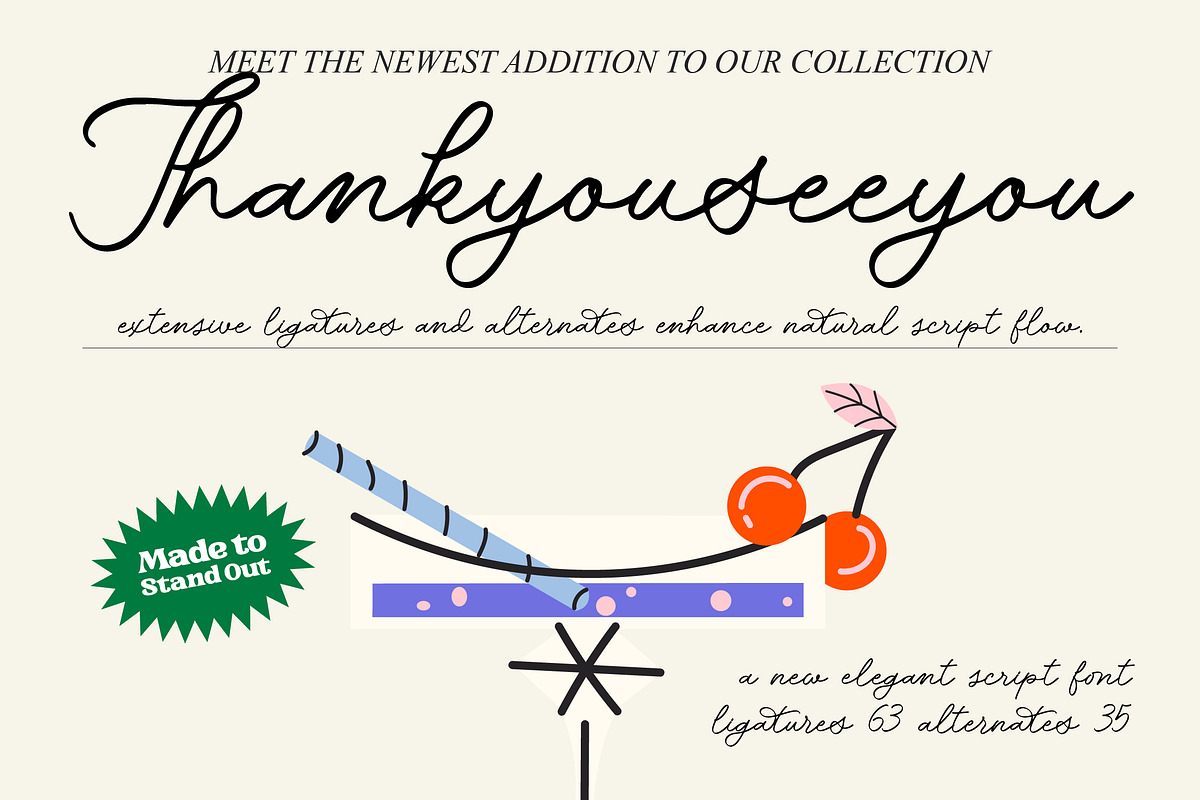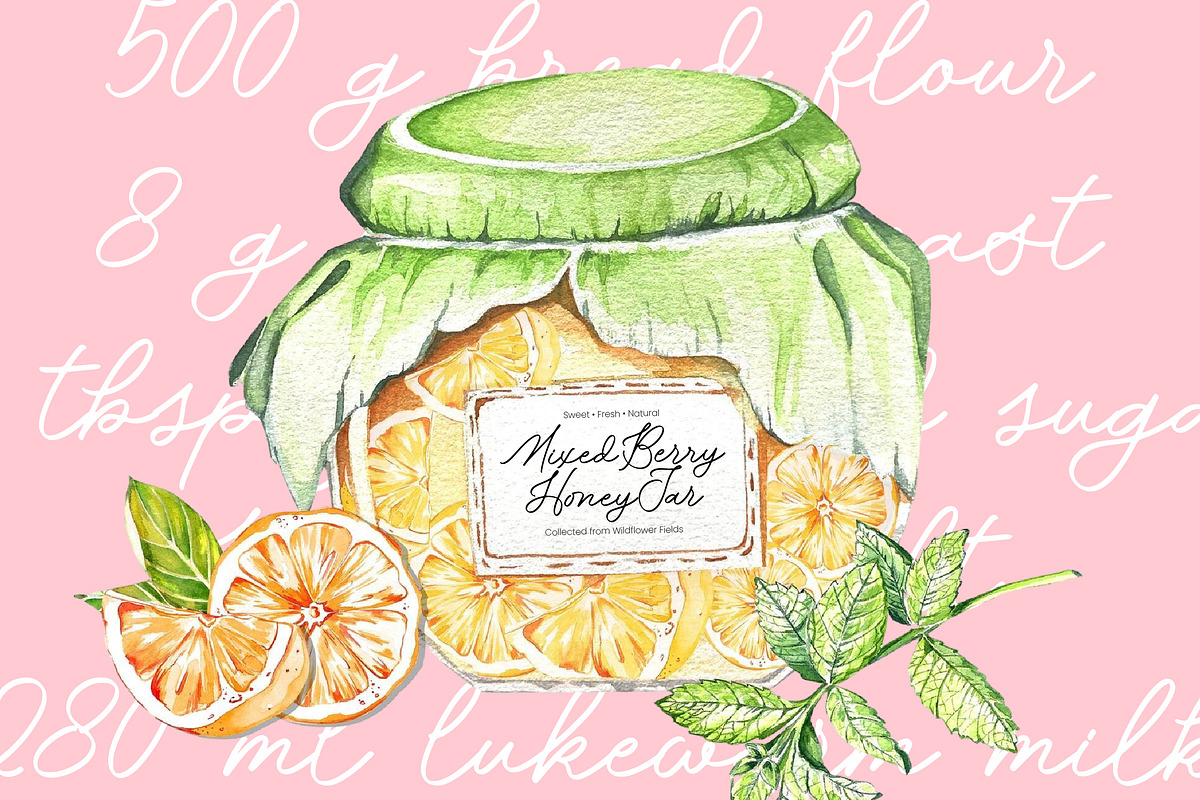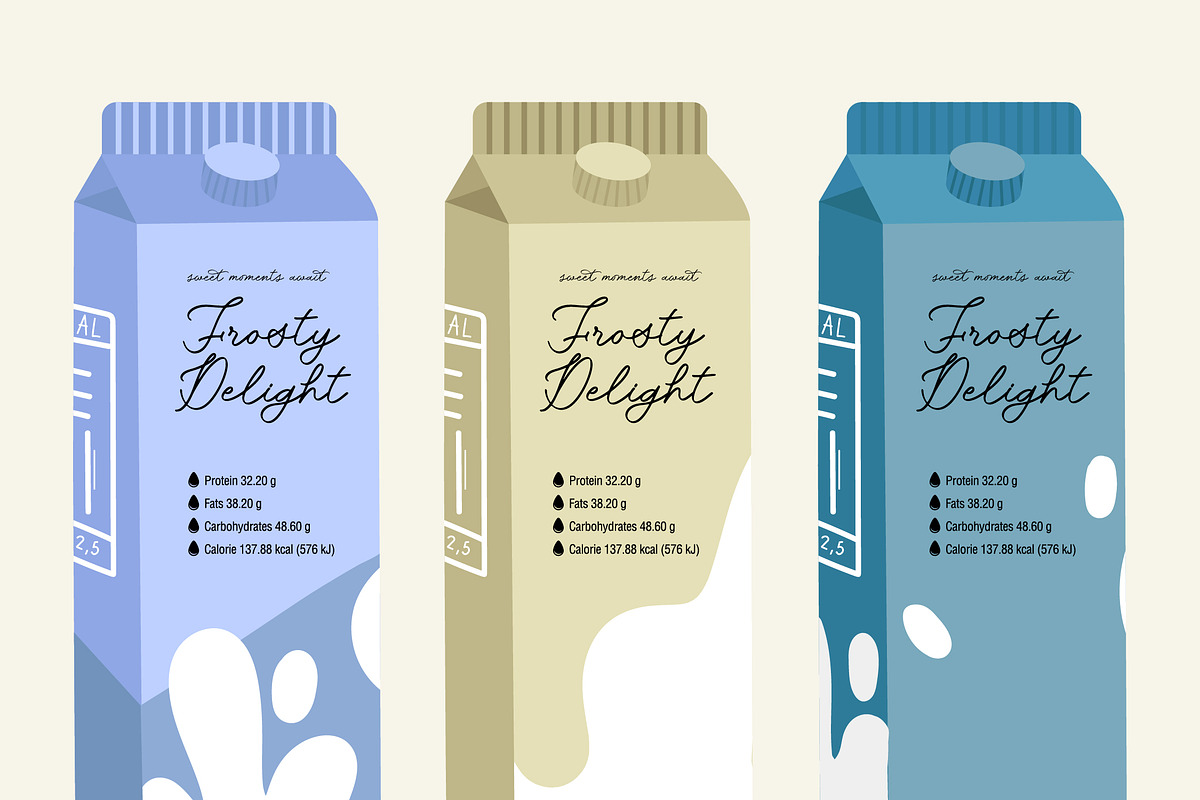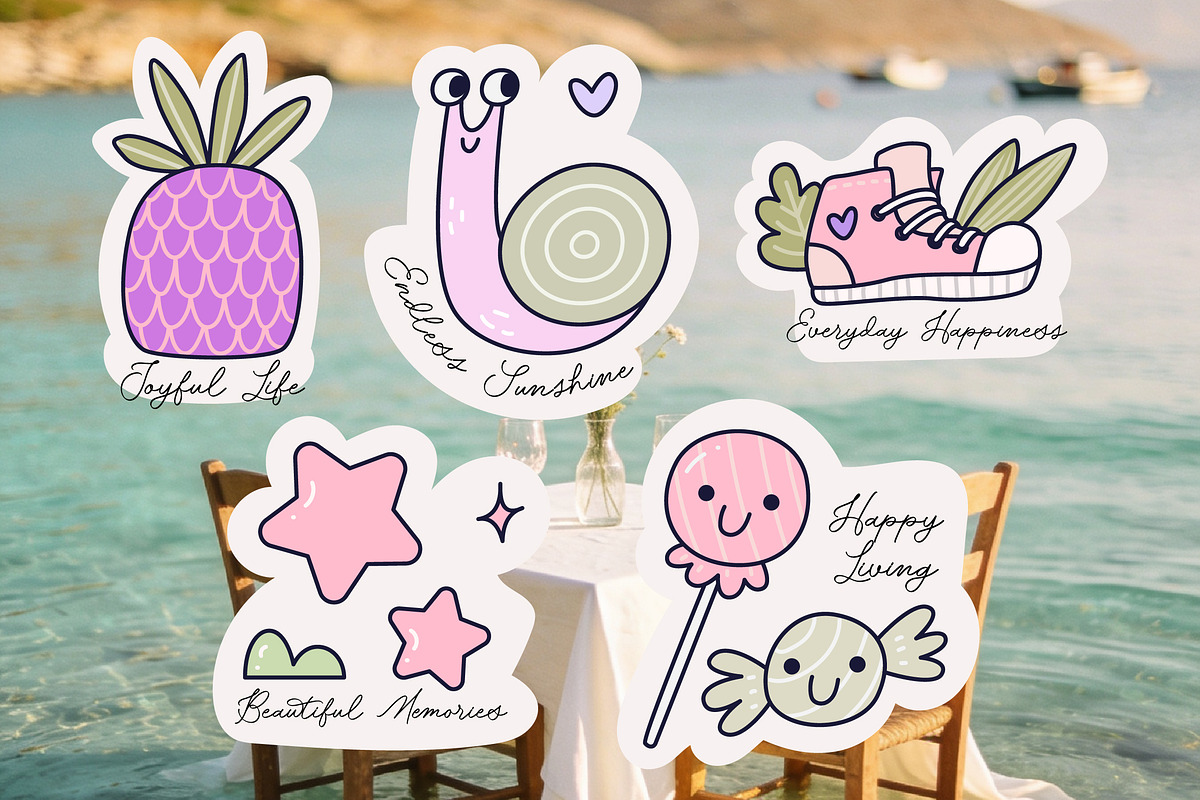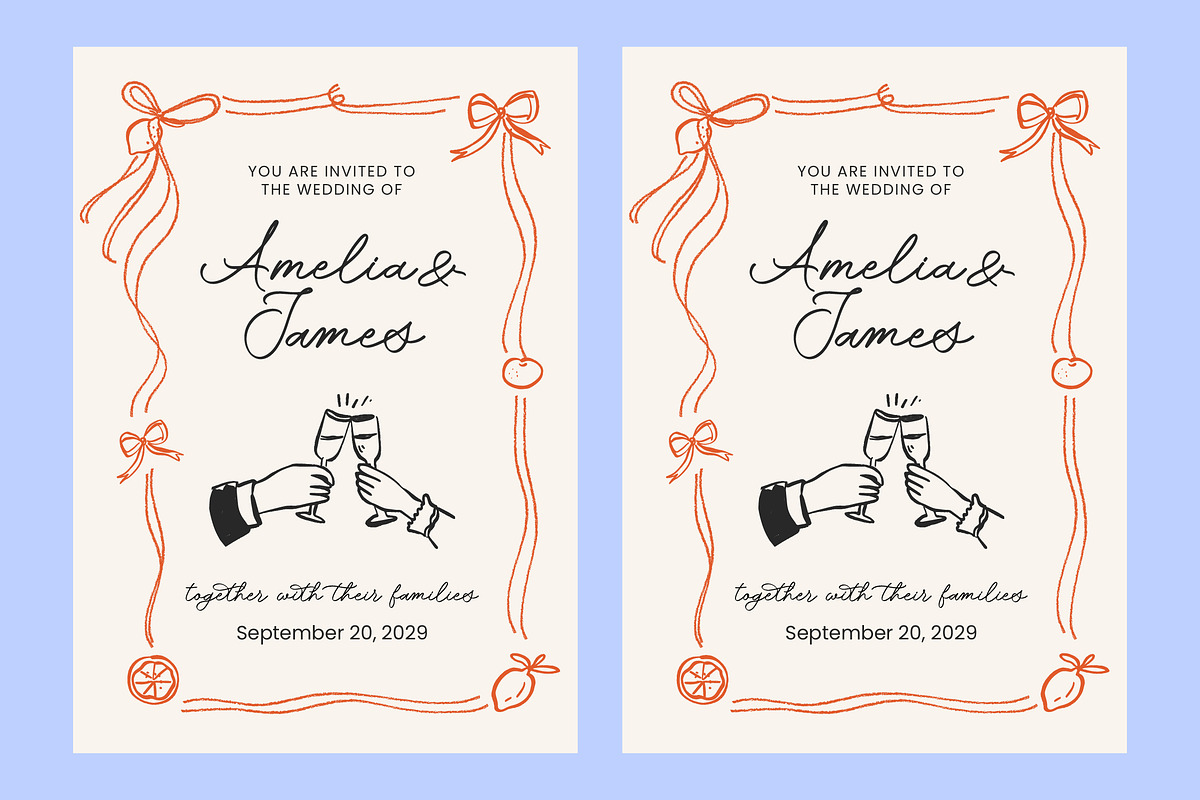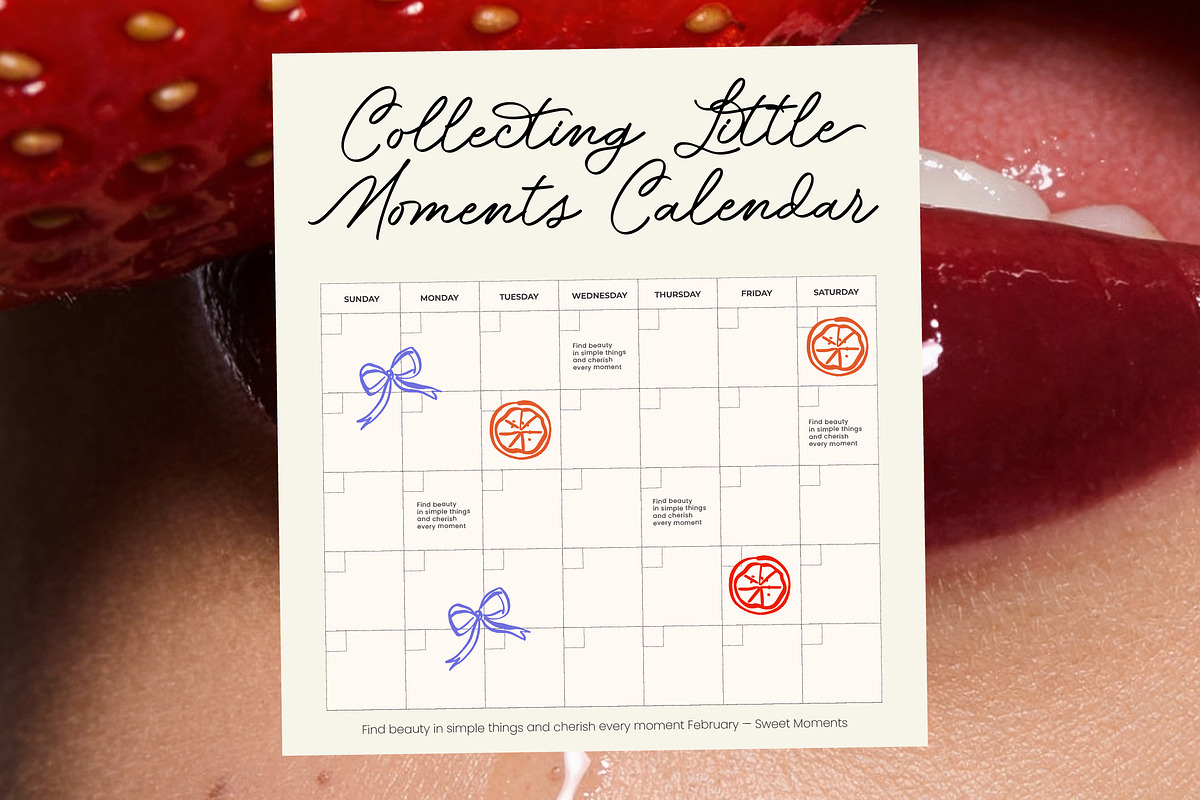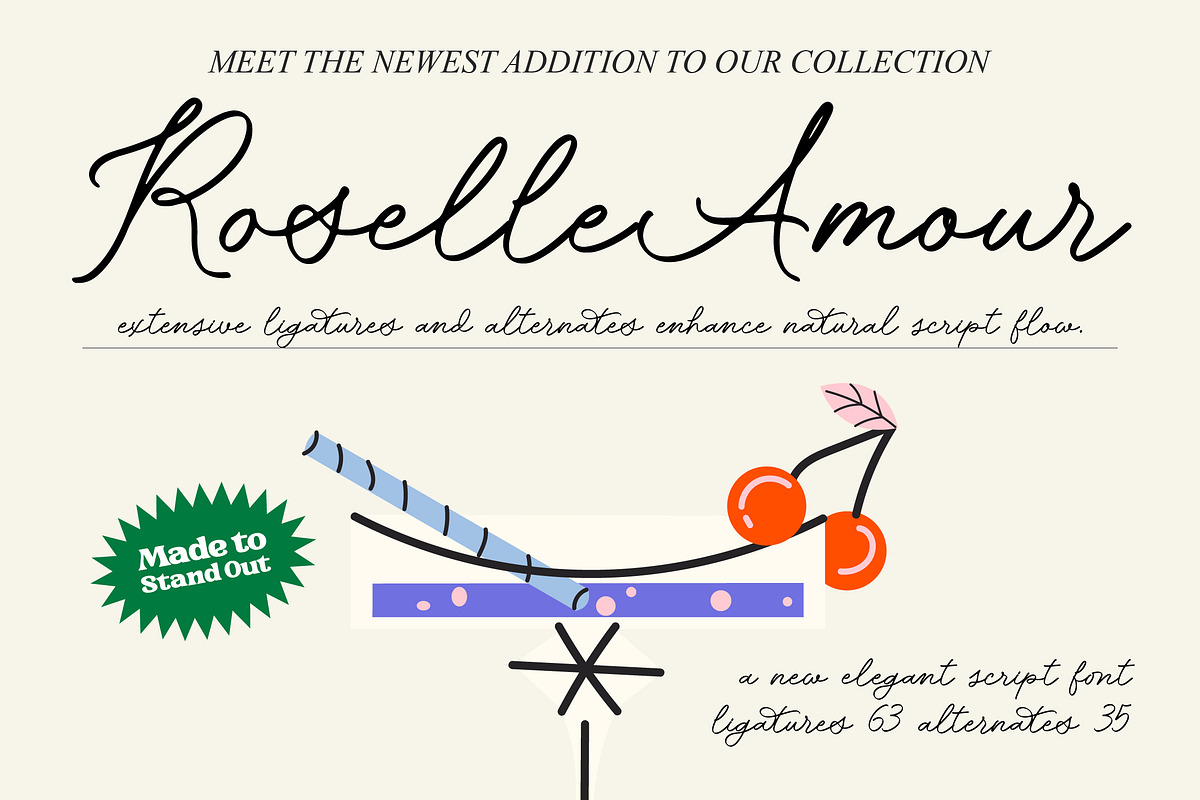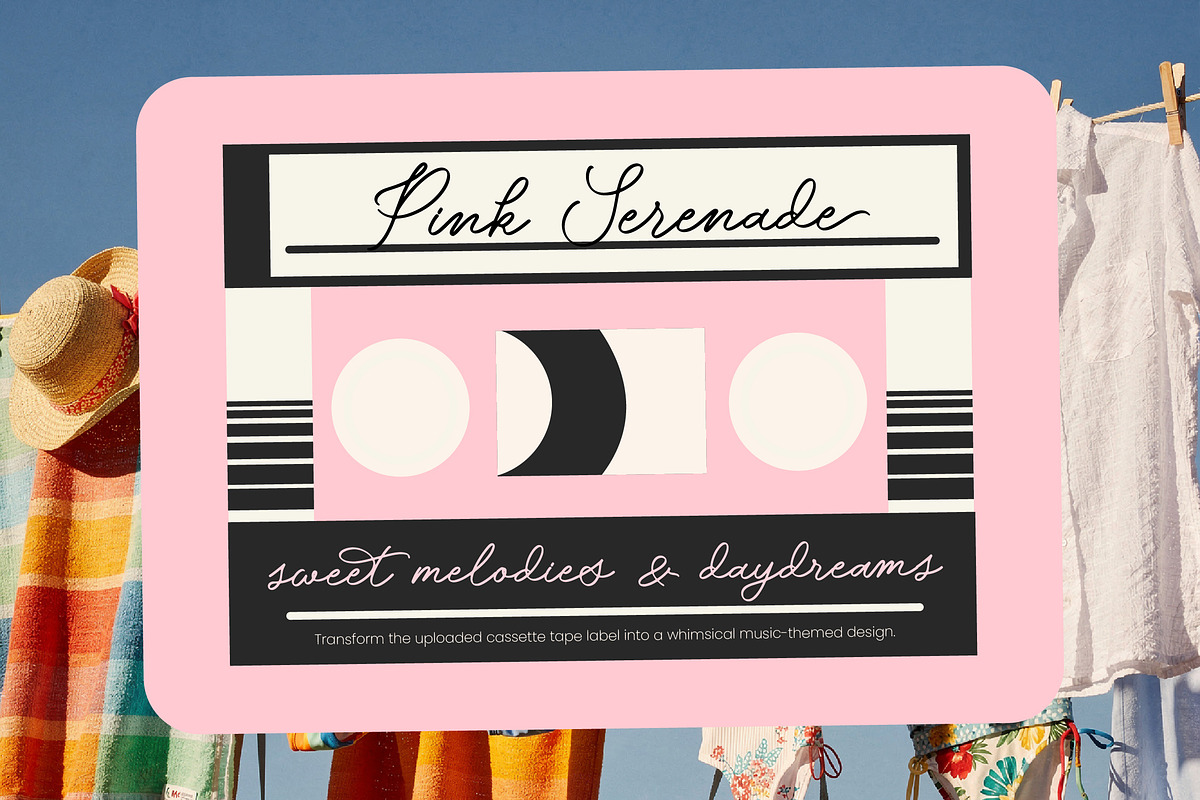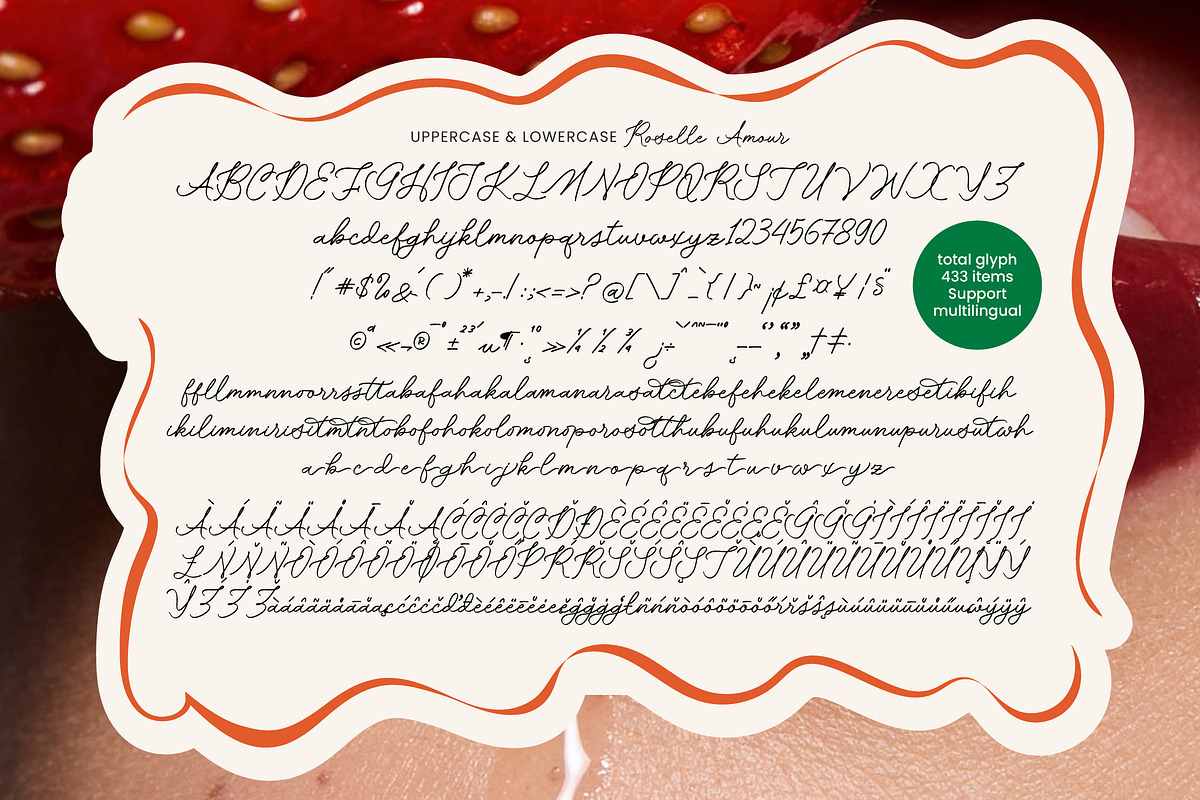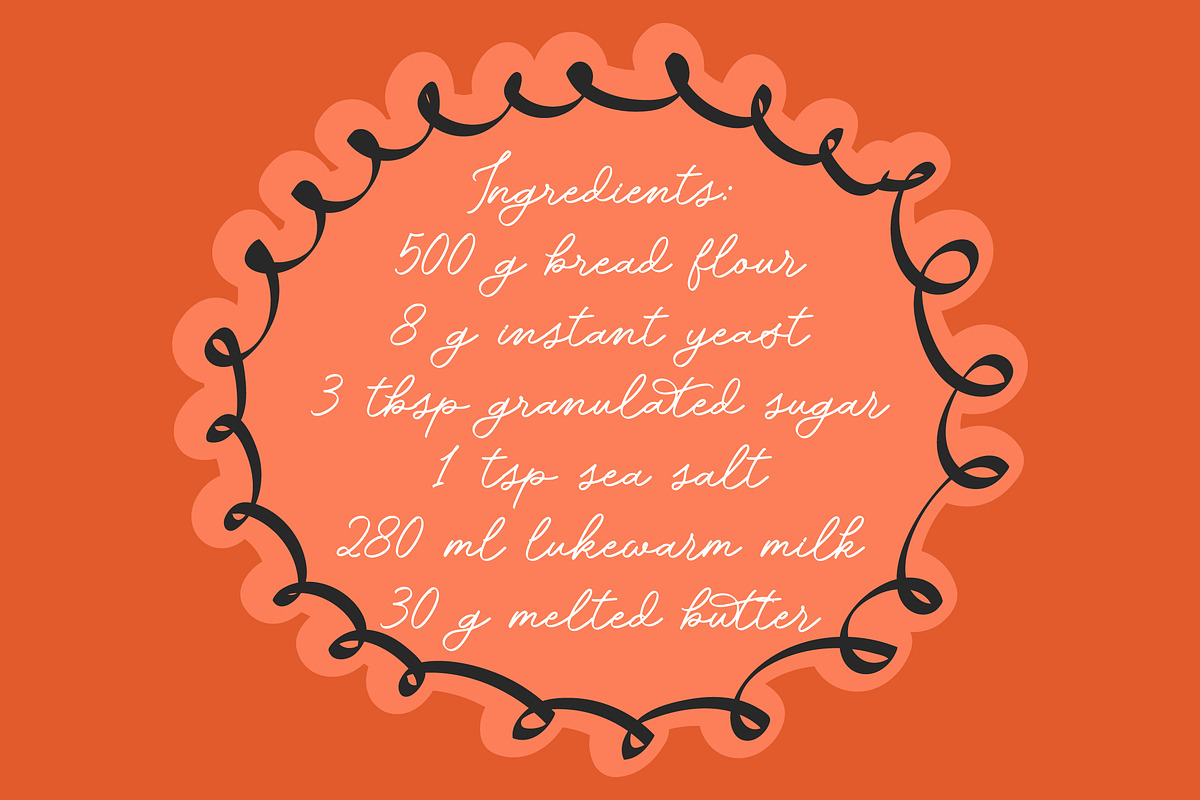
Roselle Amour New Elegant Script
Roselle Amour - New Elegant Script Font
Elevate your design projects with a touch of timeless sophistication and unparalleled grace. Roselle Amour - New Elegant Script Font captures a sophisticated aesthetic that balances handcrafted charm with modern luxury. This typeface is meticulously crafted to bring a high-end feel to any creative endeavor, ensuring your message is delivered with unmistakable elegance.
Experience the seamless flow of authentic calligraphy through a rich collection of OpenType features. With 63 ligatures and 35 alternates, Roselle Amour - New Elegant Script Font offers an organic flow that mimics natural handwriting, making every word appear custom-made. These dynamic character sets allow designers to achieve a truly bespoke look that stands out in a crowded marketplace.
Unlock global potential with a typeface designed for international reach and diverse communication. With its extensive multilingual support, Roselle Amour - New Elegant Script Font adapts seamlessly across global markets, making it incredibly versatile for international projects. This technical flexibility ensures that your premium branding remains consistent and impactful regardless of the geographic audience.
Transform your brand identity into a bold statement of luxury and refinement. Roselle Amour - New Elegant Script Font is the perfect choice for luxury branding, high-end packaging, wedding stationery, and editorial design. Whether you are crafting a fashion logo or a sophisticated social media campaign, this font provides the visual excellence required to captivate your audience.